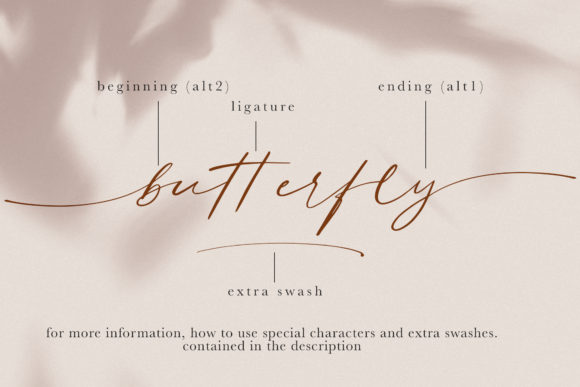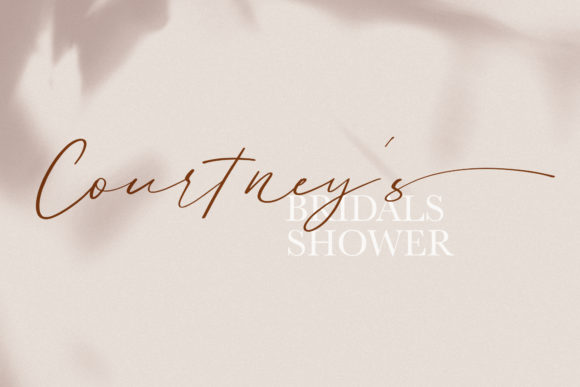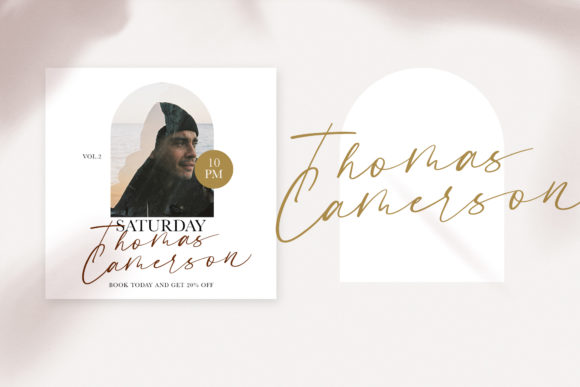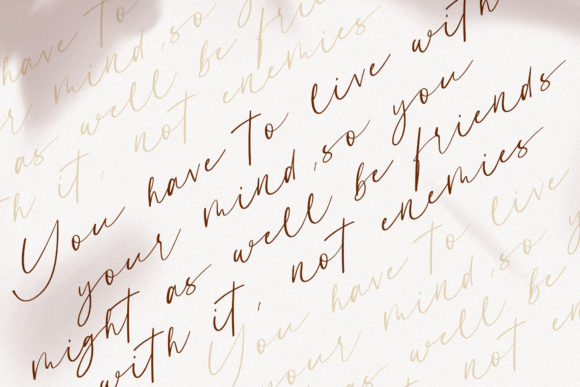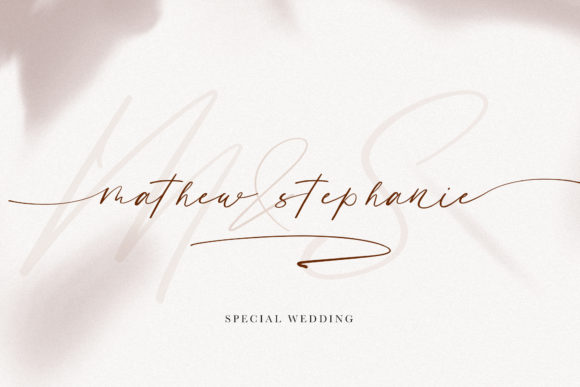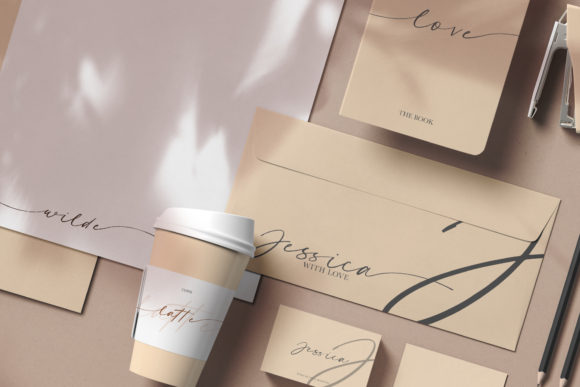
Introduction to Smoothness Font
Have you ever stumbled upon a design project and been immediately drawn in by a beautiful handwritten font? That’s exactly what happened to me when I discovered the Smoothness Font. As a designer, I’ve always been on the lookout for high-quality resources that can elevate my creative projects, and this font did just that. With its elegant and flowing lines, I knew I had to learn more about it.
As I delved deeper into the world of Smoothness Font, I was impressed by its versatility and the level of detail that had gone into its creation. PUA encoded, it offers access to a wide range of glyphs and swashes, making it the perfect design resource for any project. Whether you’re working on a branding project or creating a beautiful piece of typography, this font is sure to bring your designs to life.
Key Features of Smoothness Font
- Unique, modern font style with a focus on smoothness, ideal for designers looking for a premium feel.
- Transparent background and scalable design, making it perfect for use in digital and print materials.
- Available in 4 different font weights, providing flexibility for designers to customize their creative project.
- Designed at 300 DPI resolution, ensuring crisp and clear typography in high-resolution print materials.
Honest Review: Smoothness Font
I recently stumbled upon the Smoothness Font, and I must say it’s been a game-changer for my design projects. This font has been a lifesaver for me, and I’m excited to share my honest review with you.
- ✨ High-quality design: The Smoothness Font boasts crisp, clear lines and a clean aesthetic that’s perfect for modern designs.
- ✨ Transparent background: This font’s transparent background makes it incredibly versatile and easy to work with.
- ⚠️ Limited character set: The Smoothness Font is missing some special characters, which can be a bit of a hassle for certain design projects.
- ⚠️ Not suitable for bold typography: While the font looks great for body text, it doesn’t quite have the same impact when used for bold headings.
Overall, I’m really impressed with the Smoothness Font. It’s a high-quality design resource that’s perfect for creative projects. While it may have some limitations, I think it’s well worth the free download. Give it a try and see how it works for you!
The Smoothness Font is ideal for creative projects that require a clean and modern look, such as: brochures, flyers, posters, business cards, and digital presentations. It’s also suitable for web design, graphic design, and branding projects.